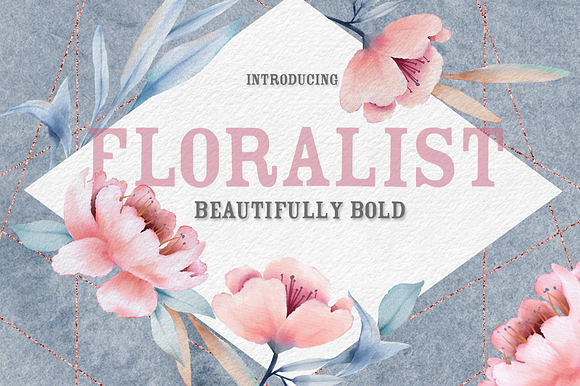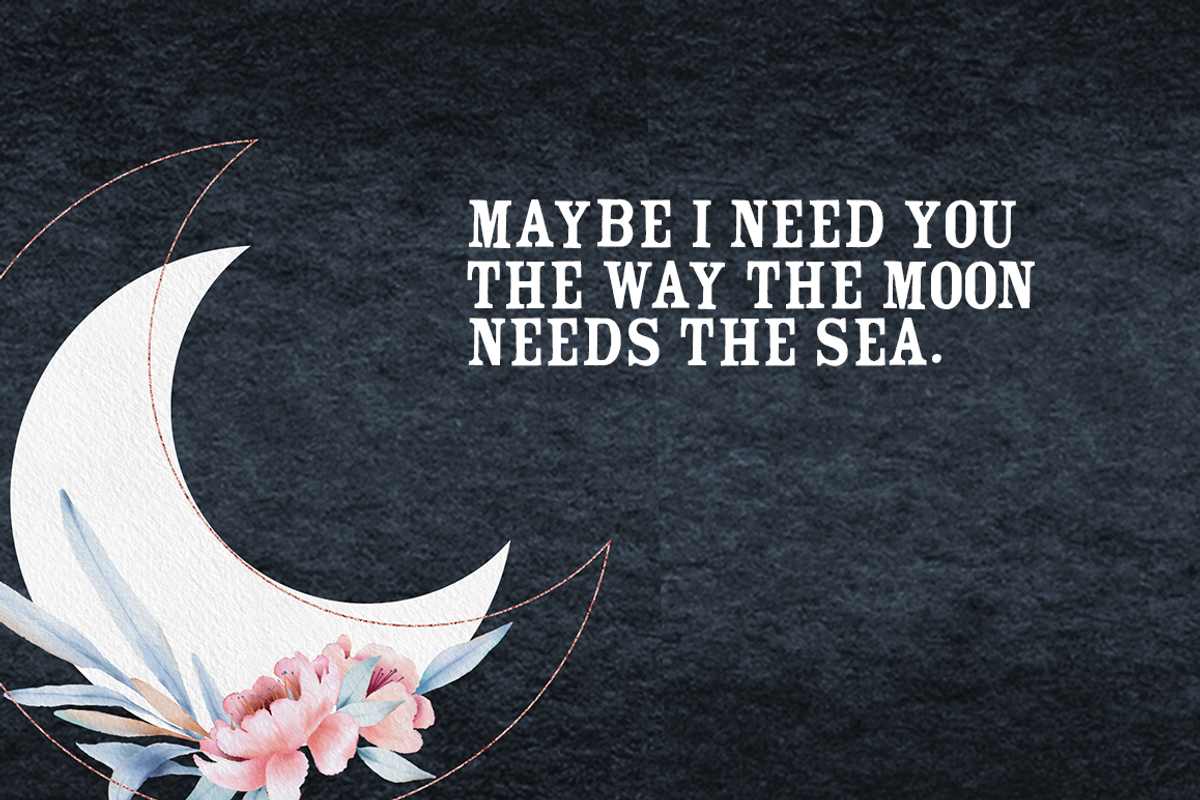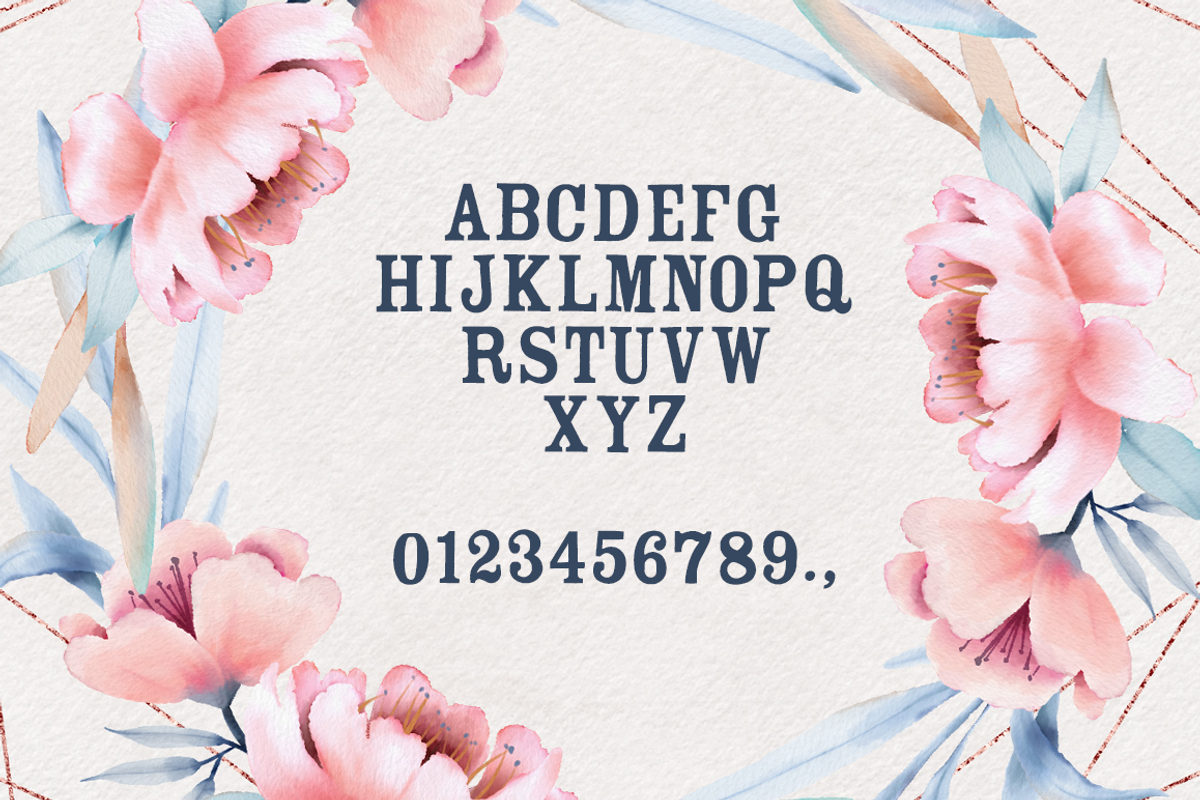
The Floralist Font
Floralist is a pretty and bold new font that adds a little height to your designs. It can even be used for quirky and unique logos! Let floralist pair with your favorite script fonts for added sass.
Please note this font ONLY includes uppercase letters, no lowercase or punctuation